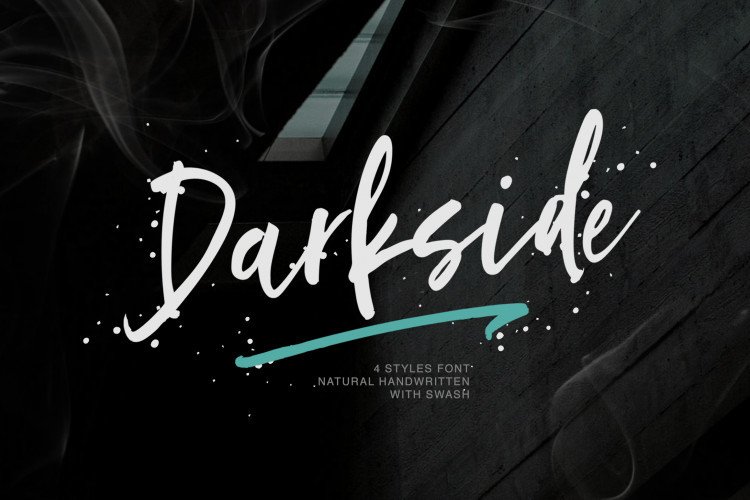
Darkside Brush Font
Darkside Font is an exciting handwritten font with brush style. This beautiful script can make your design project look elegant, classy, luxury and modern. Darkside is natural brush font with 4 styles will give a casual impression on your design. With original handmade quality, your design will look more prominent. This font perfectly suited to signature, stationery, logo, typography quotes, magazine or book cover, website header, clothing, branding, packaging design and more.